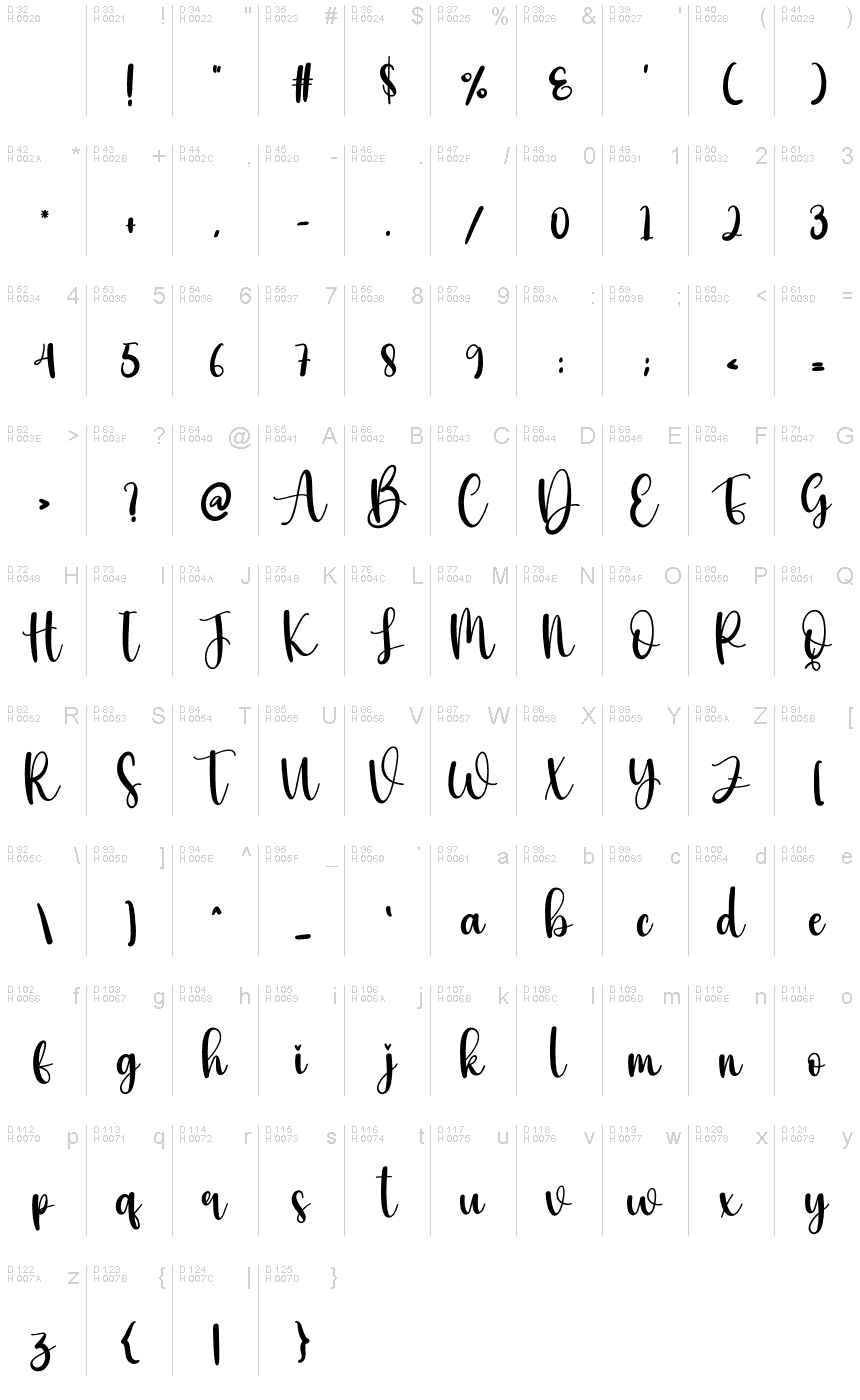
Dashing
Dashing, a mesmerizing calligraphy font crafted by scratchones, adds an elegant touch to any project. With its semi-light weight, Dashing exudes sophistication and grace. Perfect for wedding invitations, brand logos, and fashion magazines, this font brings a touch of romance and refinement. Its flowing strokes evoke a sense of movement and elegance that captivate the eye. Let Dashing elevate your designs with its exquisite calligraphic style. Whether it's a luxury brand or an artful project seeking sophistication, this font will leave an indelible impression on your audience.
The latest style letters are perfect for wall displays, wedding invitations, social media post logos, advertisements, product packaging, product designs, labels, photography, watermarks, invitations, stationery, and any project that requires taste handwriting.